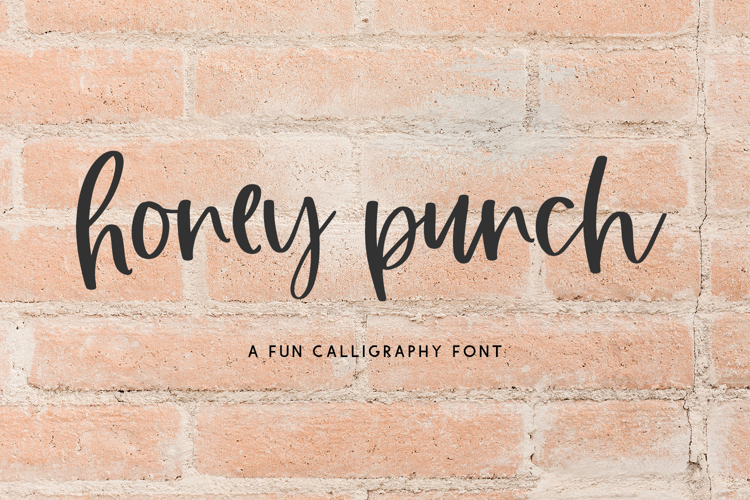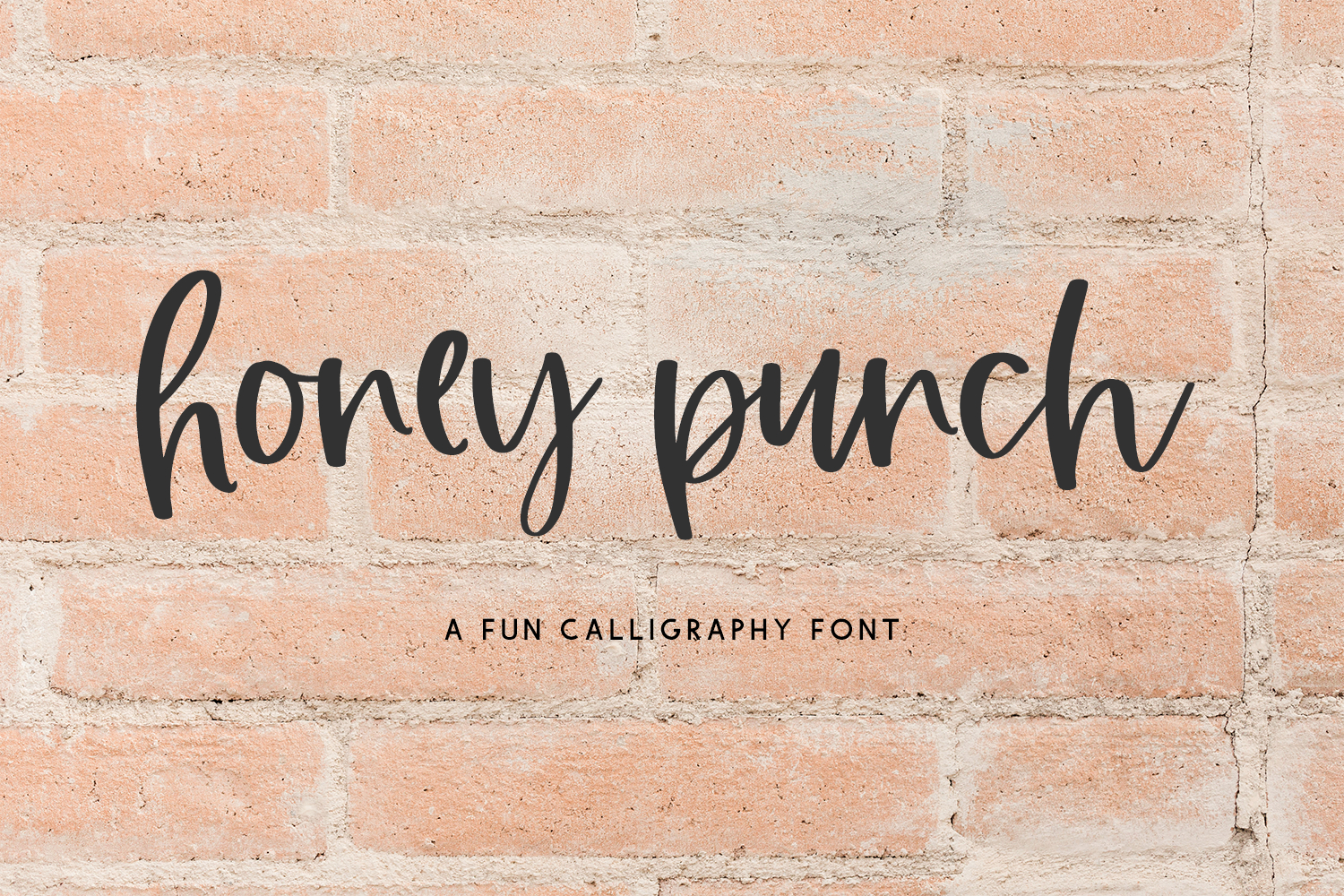
Honey Punch Script Font
Say hello to Honey Punch Script, a handlettered modern calligraphy script with a lot of personality. Honey Punch features a selection of alternate characters & ligatures to customize your text, as well as a bouncy baseline.
- 26 alternate lowercase characters
- 14 ligatures - bb, cc, dd, ee, ff, gg, ll, mm, nn, oo, pp, rr, ss, tt